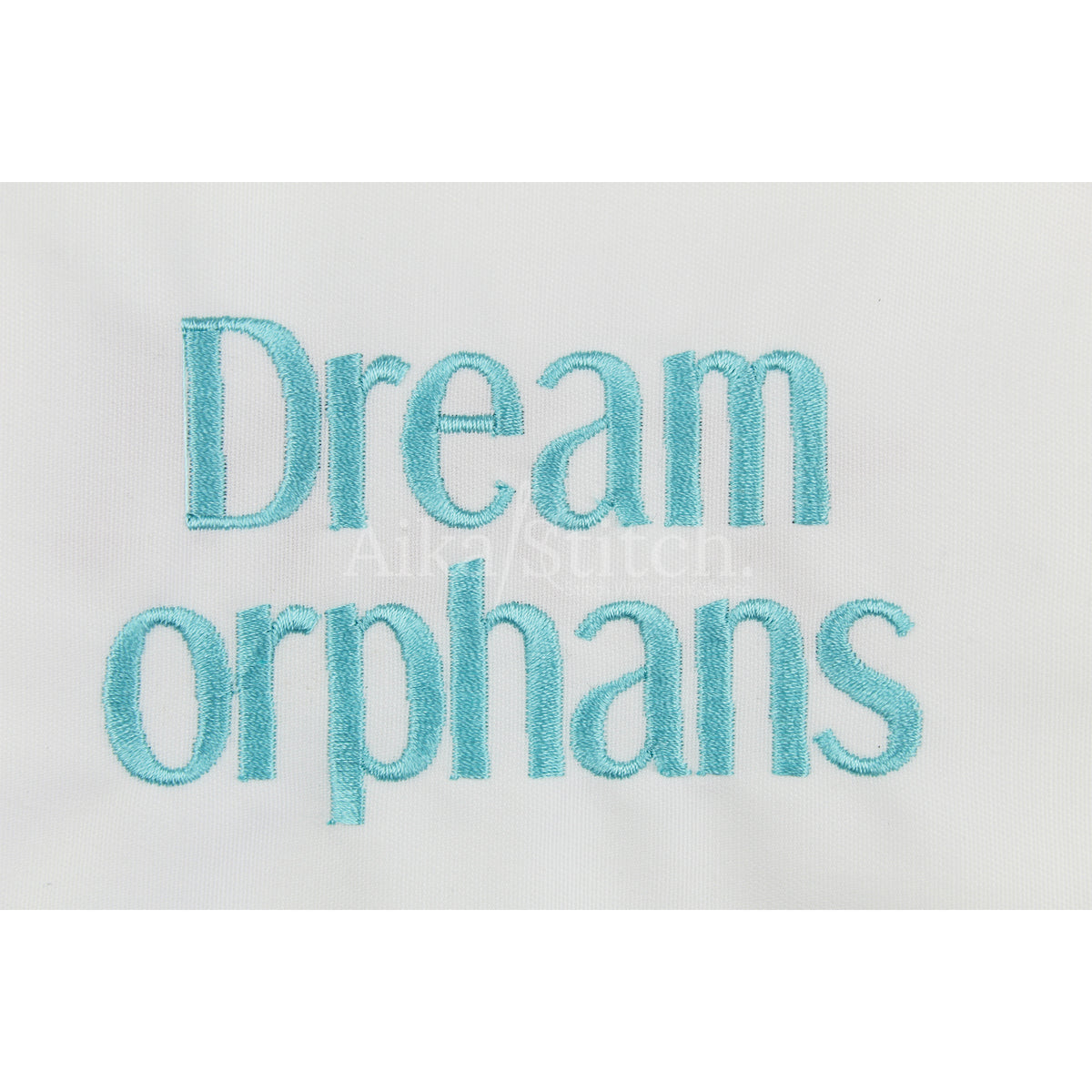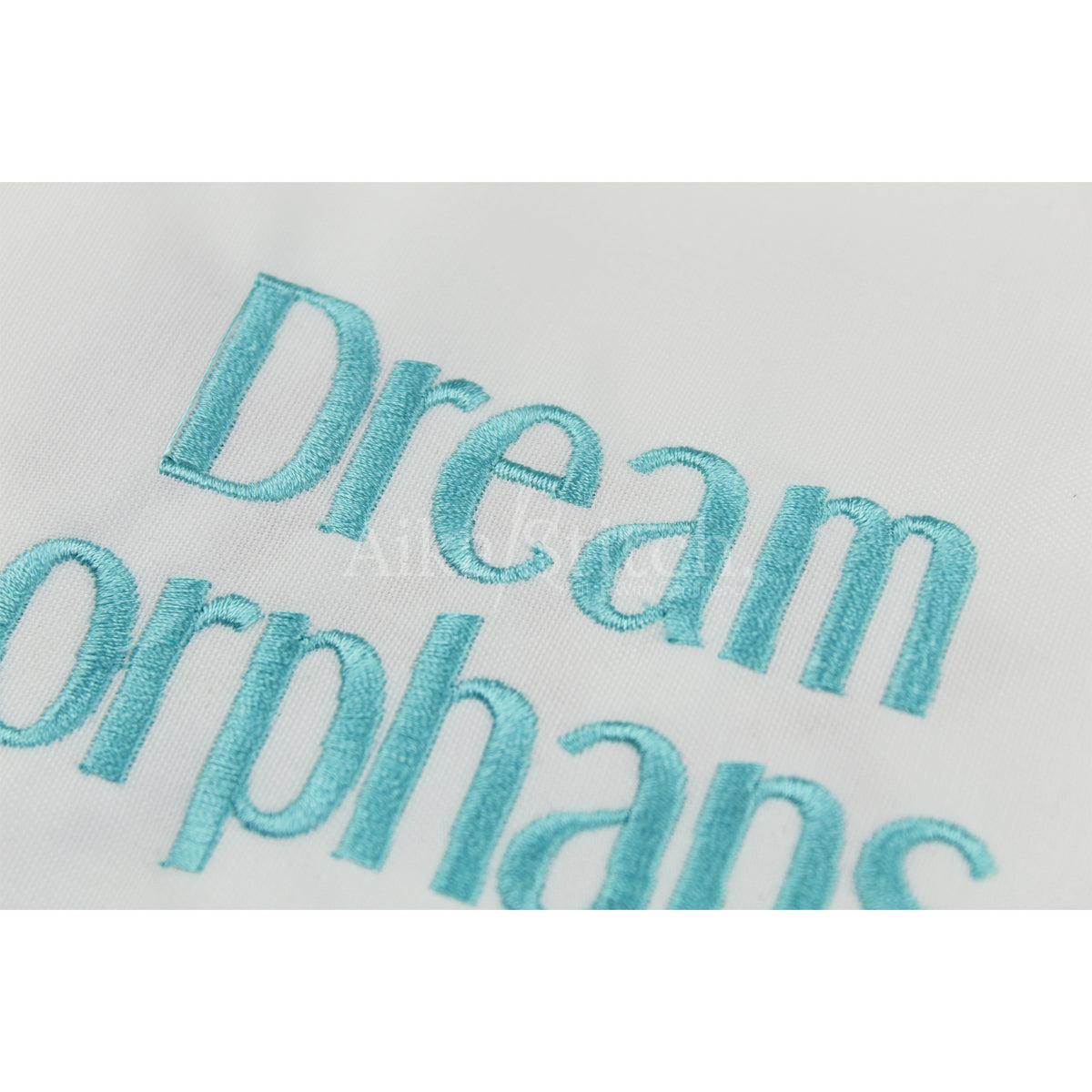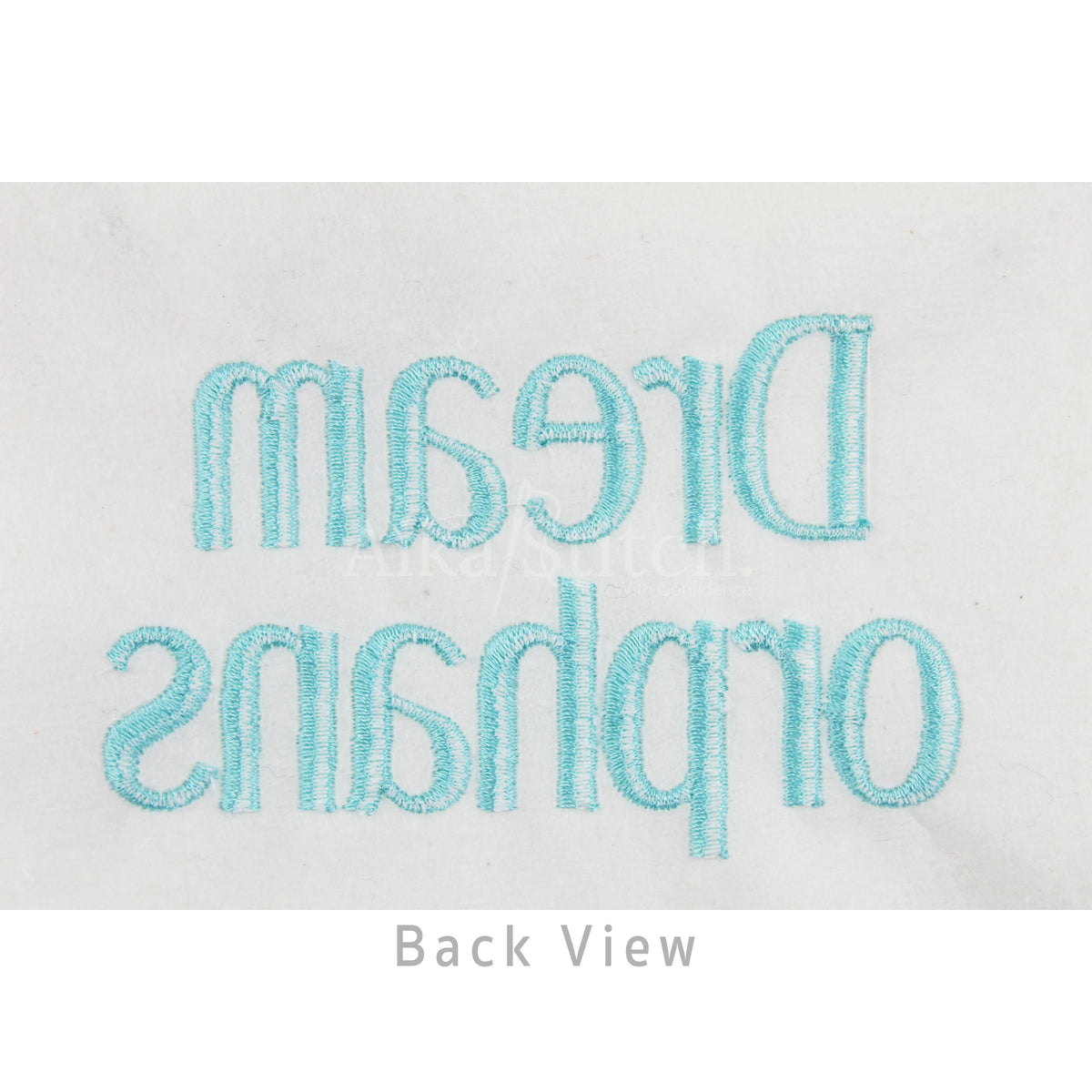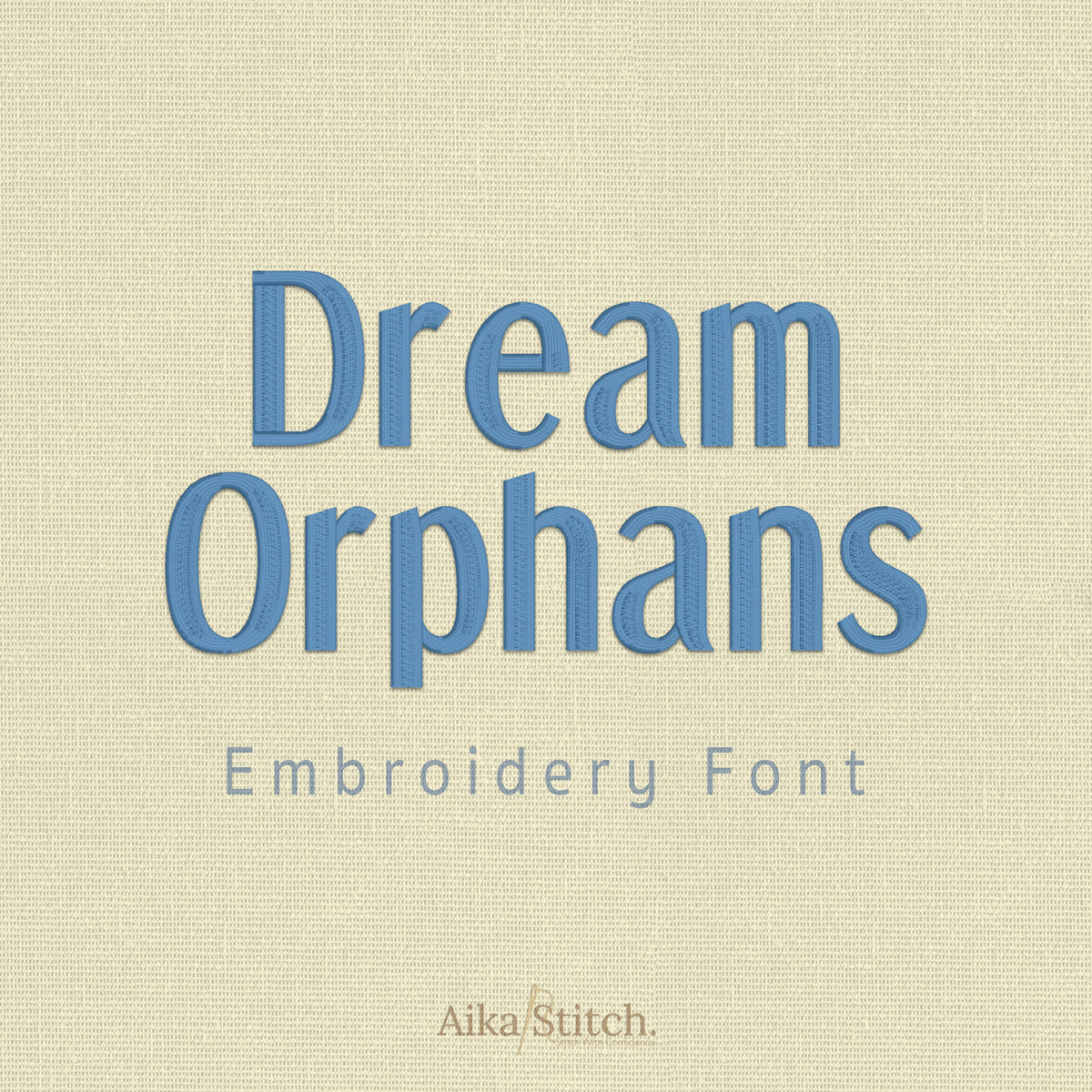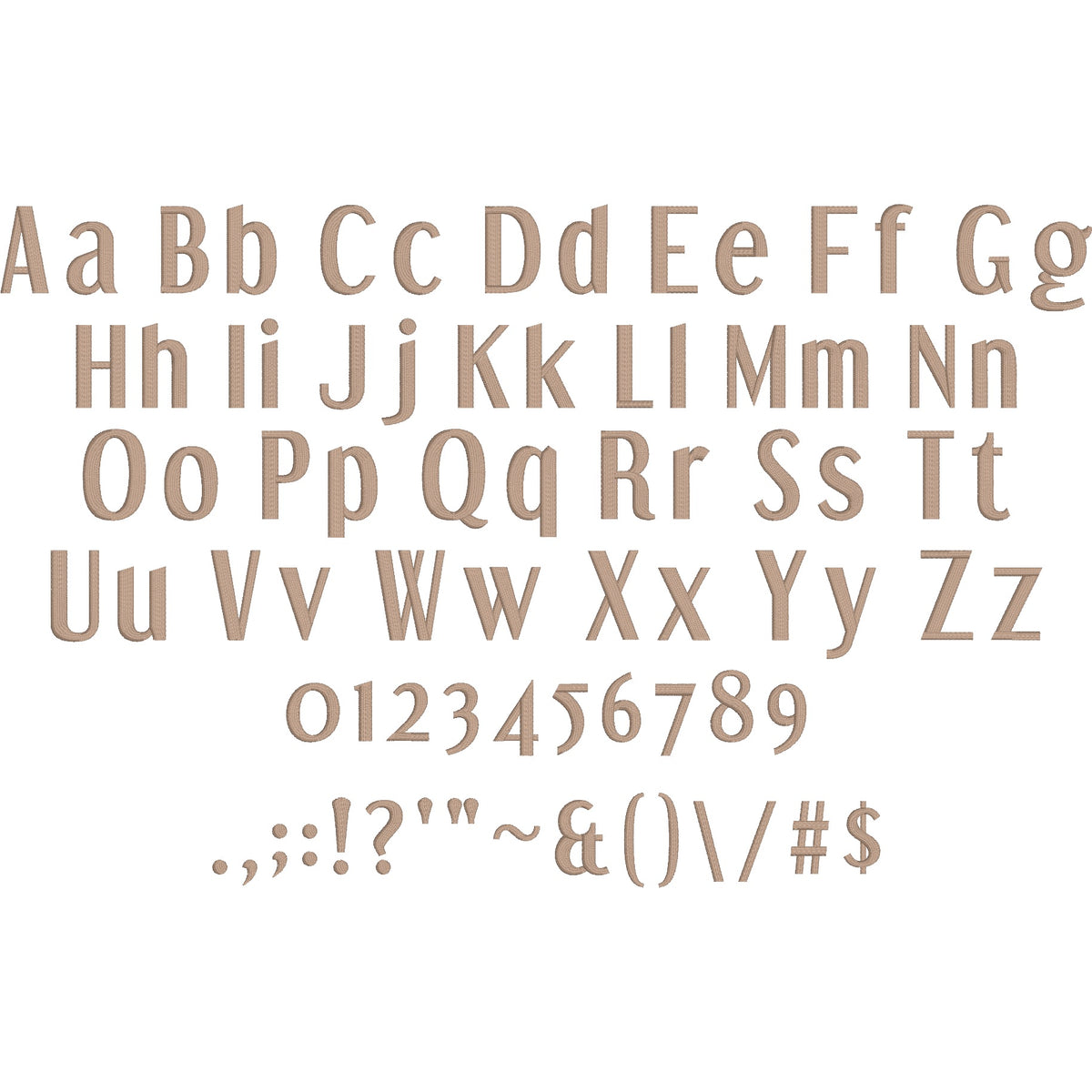
Dream Orphans Modern Elegant Embroidery Font
Dream Orphans is a Modern Elegant machine embroidery font featuring beautiful satin stitch lettering. Perfect for shirts, towels, hats, baby gifts, monograms, and small business embroidery projects.